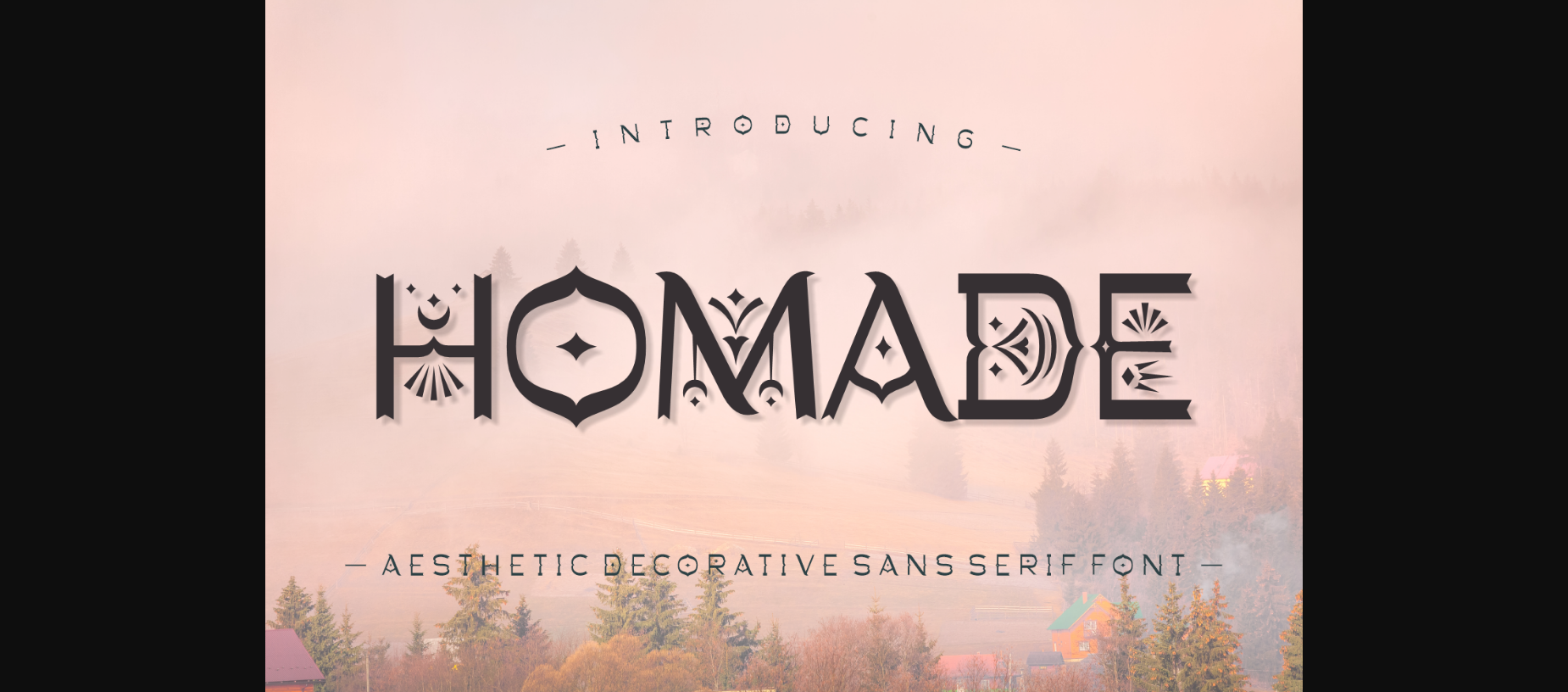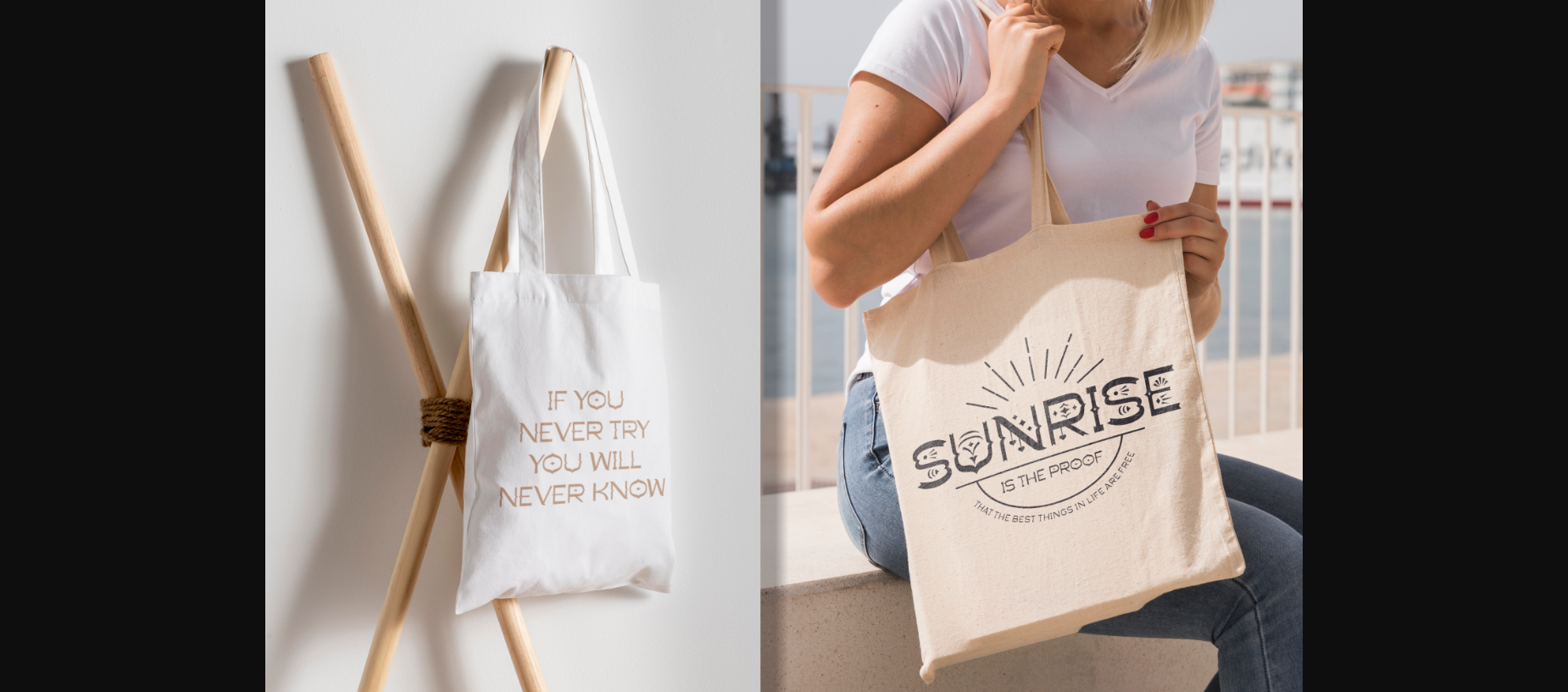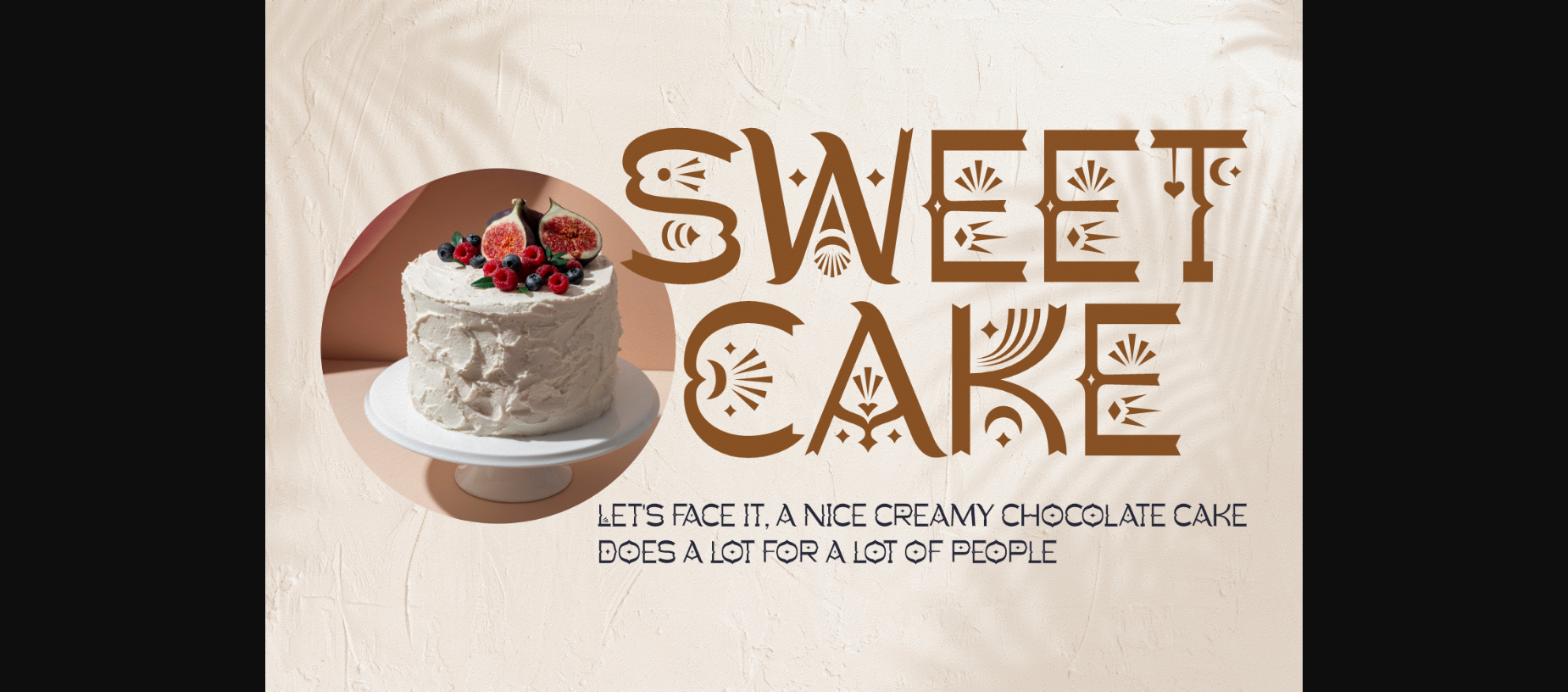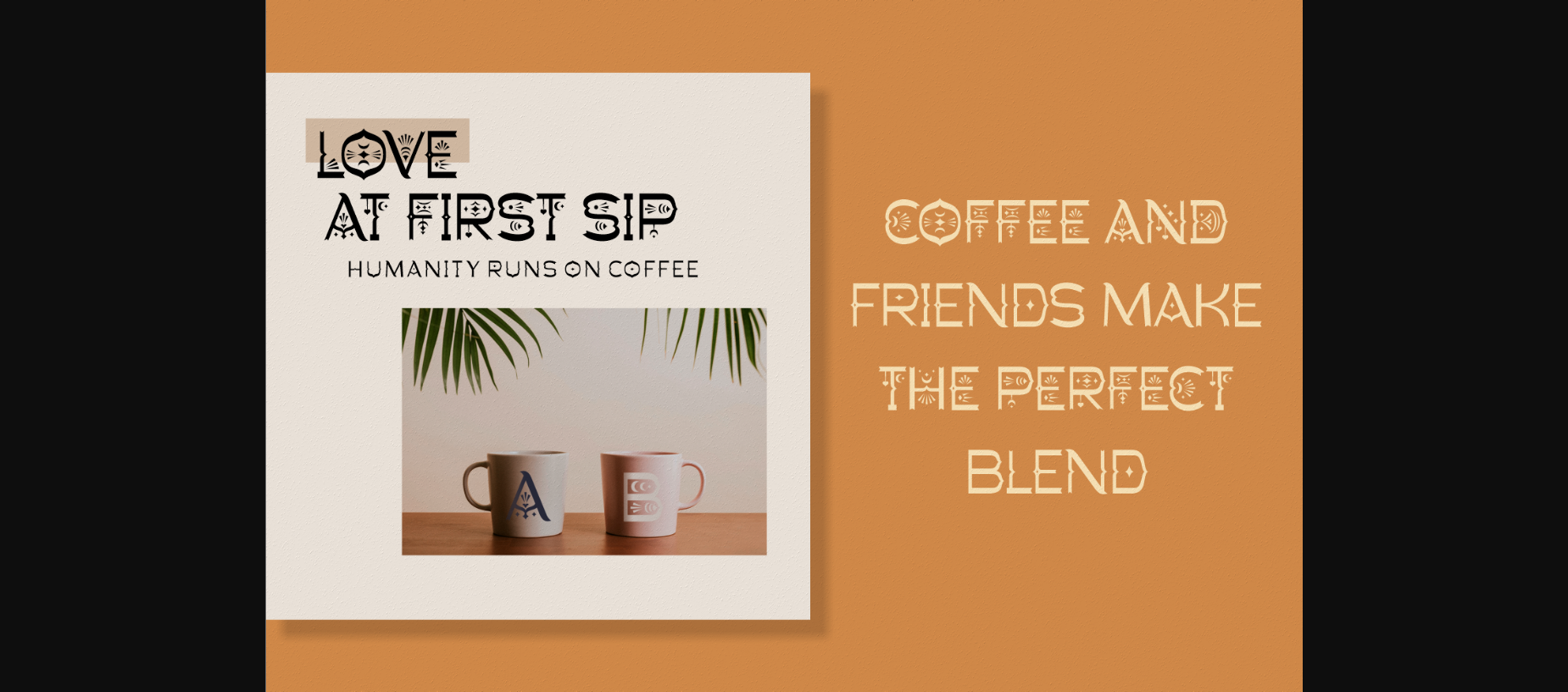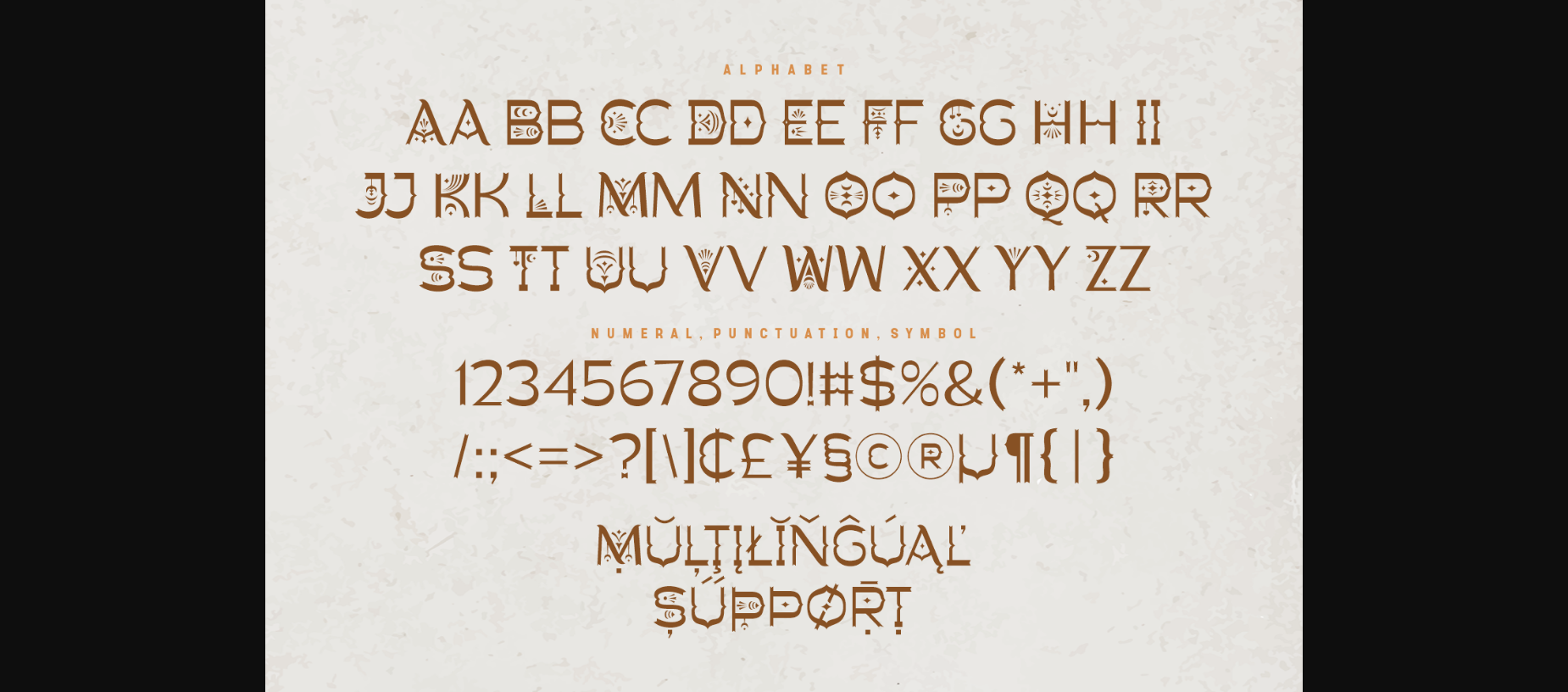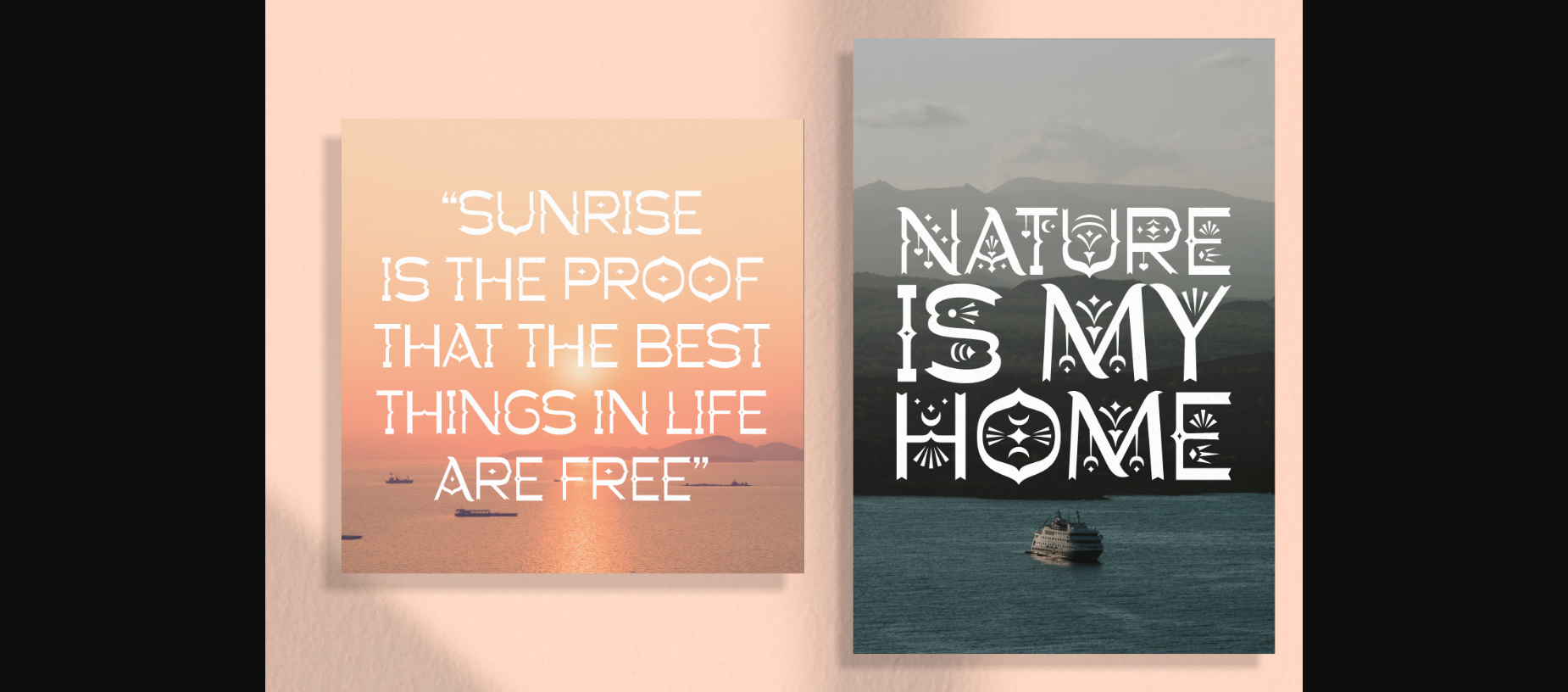
Homade Font
About Homade Font
Discover the charm of Homade, an aesthetic and decorative display font that exudes handmade elegance. With its intricate details and artistic flair, Homade adds a touch of artisanal beauty to your designs. Whether you’re crafting invitations, labels, or creative projects, this font’s unique character brings a sense of personalized style that’s truly one-of-a-kind.